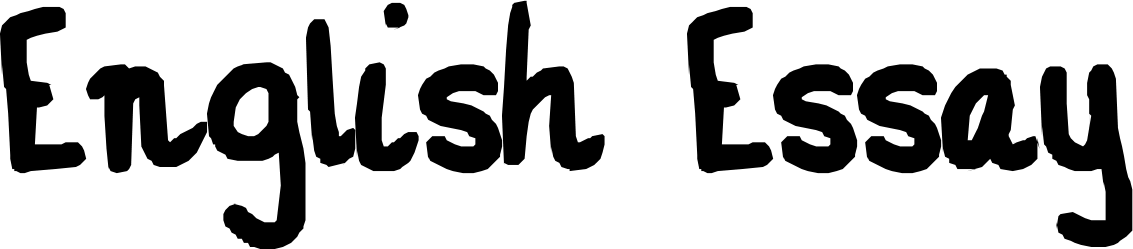
English Essay Font
Share a friendly mood with English Essay font and level up your text-based designs. This handwritten font can be used in various aspects, as a case in point; flyers, books, or even on social media. Don’t hesitate and click on the download button right away, I bet you’ll love it!